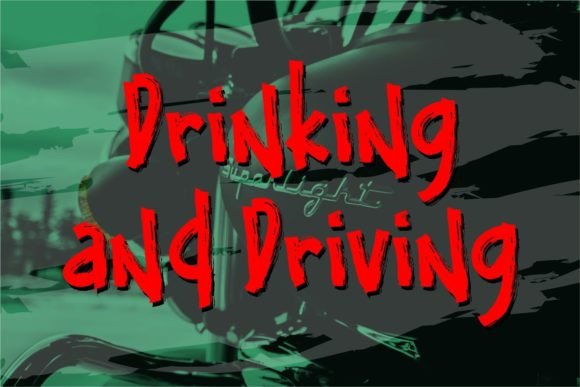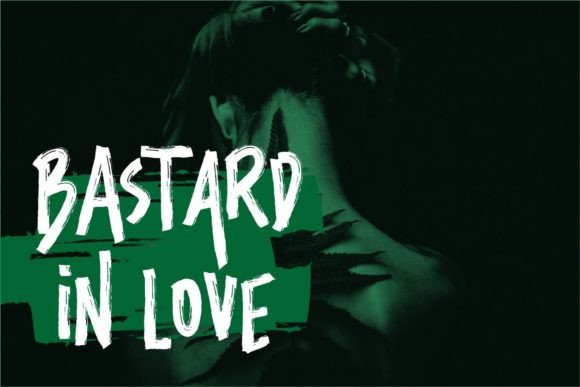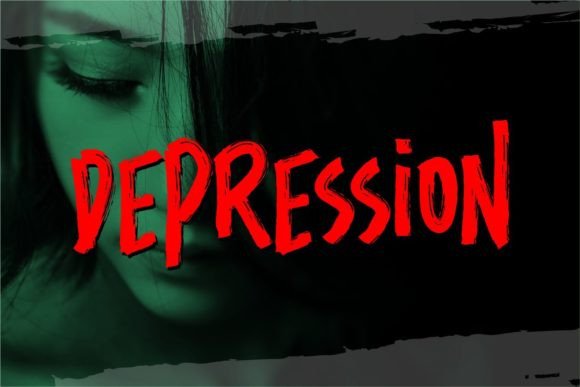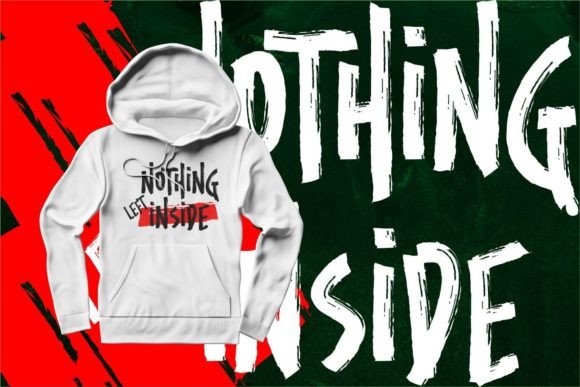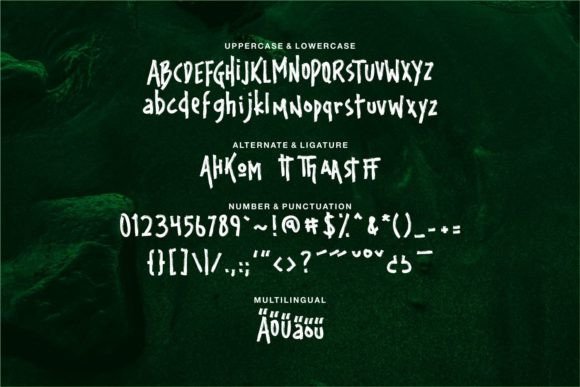
Introduction to Kohang Font
Kohang is a brush display font with a unique style.
It will look so beautiful on invitations like greeting cards, branding materials, business cards, quotes, posters, and more .